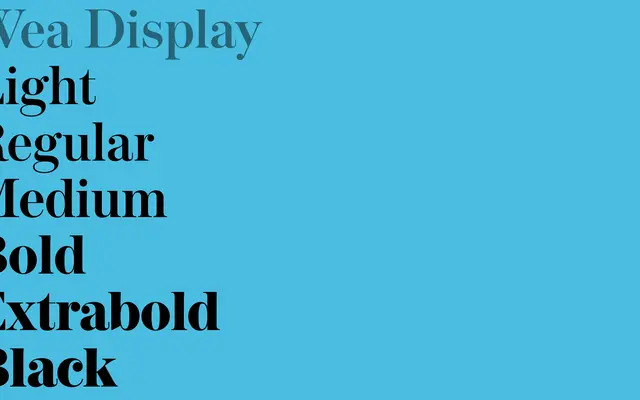
WEA Display
WEA Display specimen from A2-Type
A display serif drawn for Weekendavisen, the Danish weekly broadsheet, as part of a type system that won the World's Best Designed Newspaper award twice.
Commissioned by Weekendavisen and rooted in the paper's lineage back to Berlingske Tidende (1749), WEA Display provides thirteen styles from Light to Black with matching italics for headline work. It forms part of a broader system alongside WEA Text, WEA Hairline, WEA Sans, WEA Sans Condensed and WEA Sans X Condensed, built for both print and screen. The system received the Tokyo TDC Award in 2021 and the redesign it underpins was named World's Best Designed Newspaper by the Society for News Design in both 2021 and 2026.
WEA Display is a high-contrast display serif designed for large-size editorial use in a newspaper context, optimised for headlines and prominent typesetting rather than continuous text.